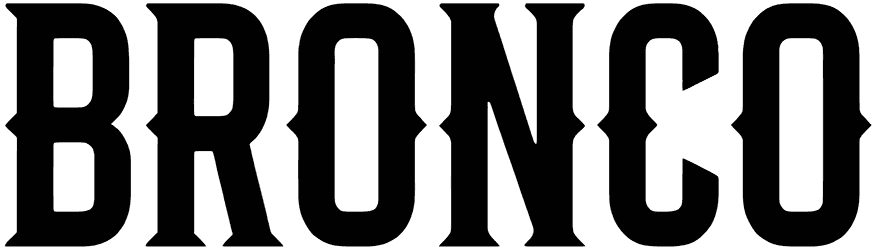
Bronco Font
Appearing in that traditional classic style, Bronco does you a favor by letting your words depict a glance at the Wild West and preparing you for the adventures ahead. In fact, Bronco is a lot more than a simple serif font, having a lot of retro appeal to offer you as an original barbershop font. You may have no option for the lowercase letters, but this all-caps font still hits the spot for designing barbershop posters, hot tattoos, and more.